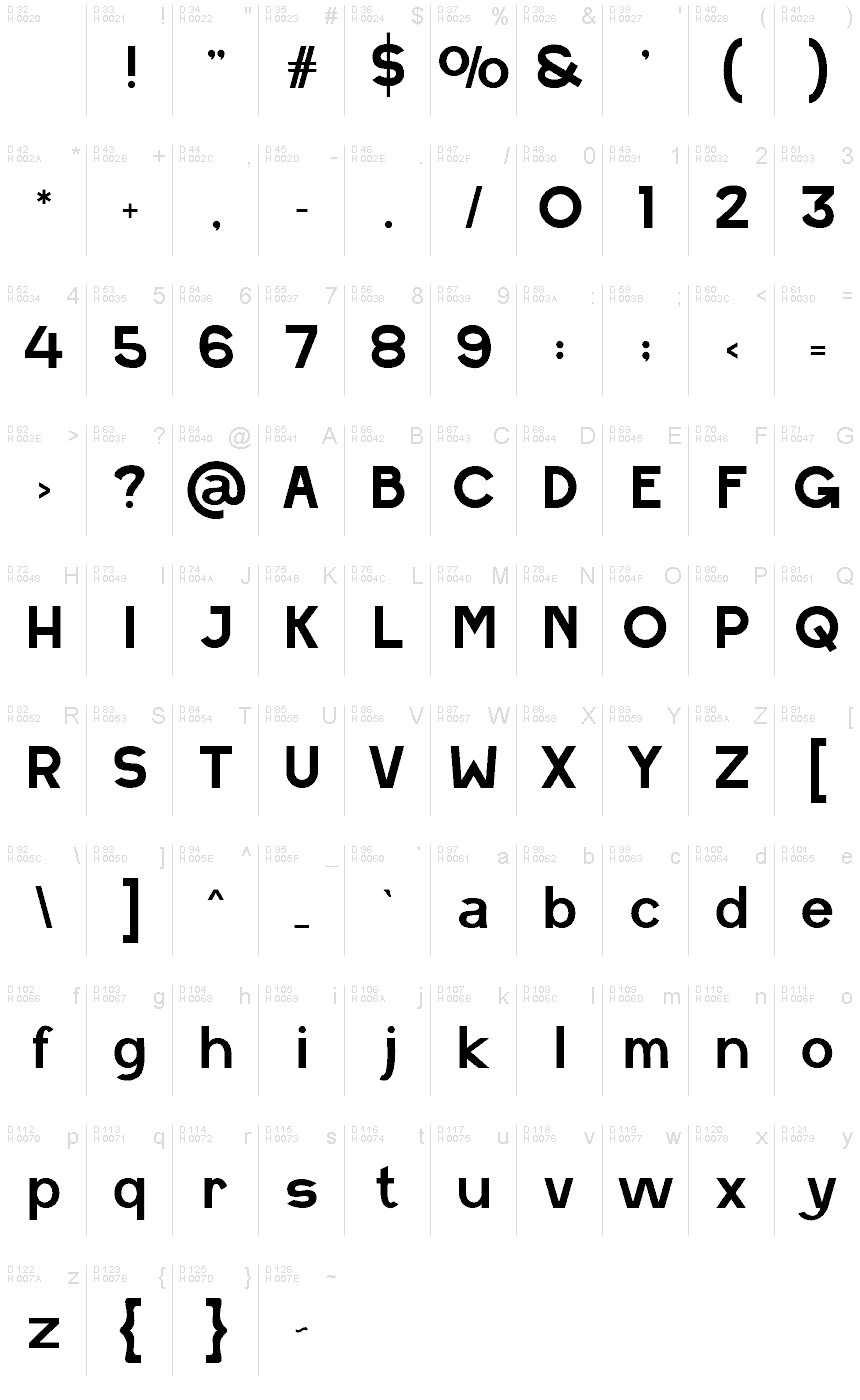
Galpo
Galpo font designed by Gilang Ternadho is an exquisite modern rounded typeface. The sans serif design is pretty much geometric with pure shapes that have smooth curves and clean cuts, making it extremely sharp and engaging in small and big sizes. Rounded endings on all corners add to its elegance which makes this font more versatile for many projects.
Galpo’s style is refreshing, friendly, soft, and welcoming for a variety of products such as food & drinks packaging or branding visuals. Use it in digital publications whether websites or apps as well. Other possibilities are physical displays such as street signs, storefronts, posters, indoor signage plus ads like magazines or newspapers inserts.